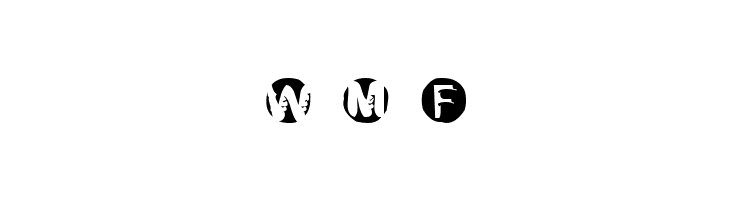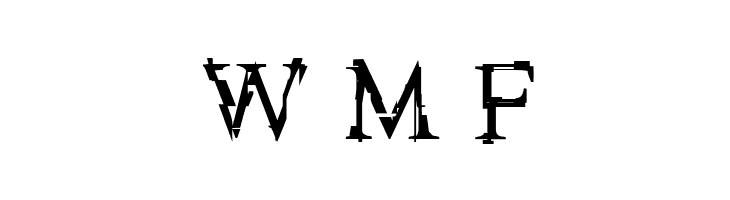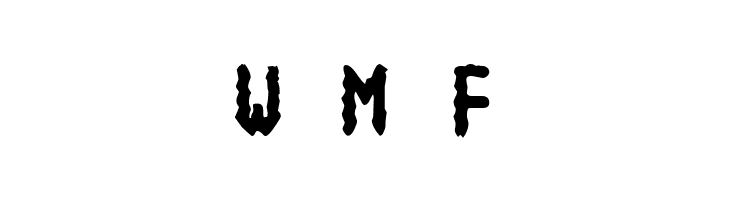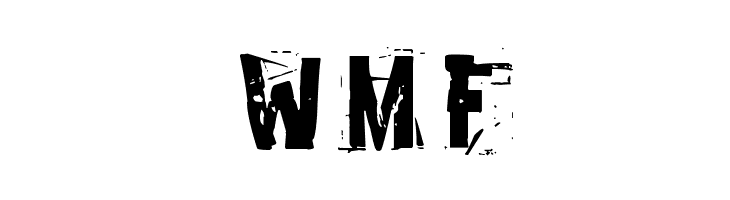
A bold, textured font with a hand-drawn, distressed appearance.
A bold, distressed serif font with a vintage, stamped appearance.
A bold, distressed font with a vintage, hand-printed style.
A bold, distressed font with a gritty, urban style.
A bold, textured font with a hand-painted, rustic style.
A rugged, distressed font with a vintage, hand-painted style.
A bold, distressed font with a vintage, stamped appearance.
A bold, textured font with a vintage, handcrafted look.
A bold, distressed stencil-style font with a rugged, industrial look.
A bold, distressed font with a vintage, weathered appearance.
A rugged, distressed font with a hand-drawn, vintage style.
A textured, vintage-style font with a handcrafted, stamped appearance.
A vintage, typewriter-style font with a rough, textured appearance.
A distressed, textured font with a vintage, industrial feel.
A rugged, distressed font with a vintage, hand-crafted appearance.
A bold, distressed font with a rugged, vintage texture.
A bold, distressed font with a grunge, textured appearance.
A bold, distressed font with a grunge, hand-painted style.
A distressed, grungy font with bold, uneven edges and a chaotic aesthetic.
A bold, distressed font with a rugged, grunge style.
A bold, distressed font with a rugged, handcrafted appearance.
A bold, textured font with a distressed, vintage appearance.
A bold, distressed font with a vintage, industrial feel.
A distressed, typewriter-style font with a grunge, vintage look.
A bold, textured font with a distressed, hand-painted appearance.
A bold, distressed font with a rugged, vintage appearance.
A bold, distressed font with a vintage, hand-crafted look.
A bold, distressed font with a gritty, vintage industrial style.
A bold, distressed font with a hand-painted, vintage look.
A bold, textured font with a vintage, handcrafted appearance.
A bold, distressed font with a rugged, grunge-like aesthetic.
A bold, distressed font with rough, textured edges for a rugged look.
A distressed, grunge-style font with a splattered, worn appearance.
A bold, textured decorative font with a hand-carved appearance.